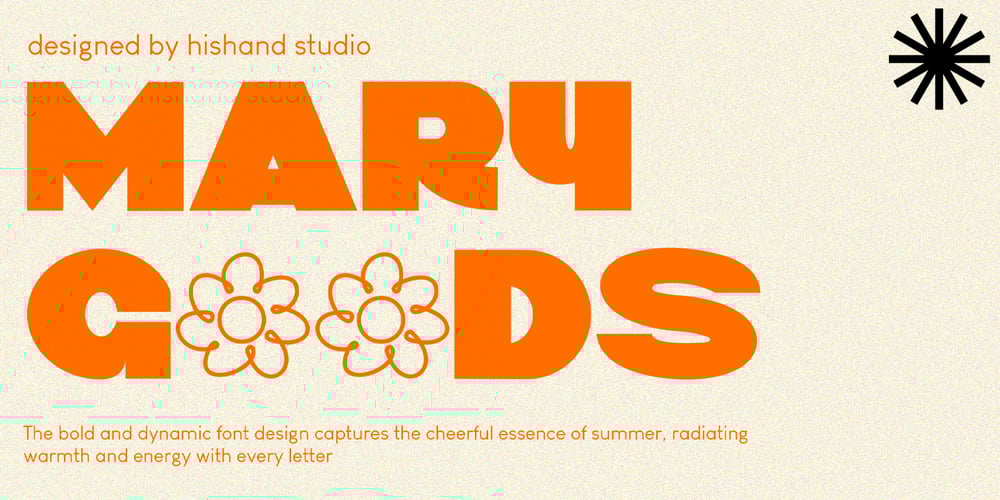
Mary Goods
Mary Goods font
Mary Goods Font Family was designed by Putu Dody Permana and published by Hishand Studio. Mary Goods contains 3 styles and family package options. Introducing MARY GOODS, the sans-serif bold font that’s perfect for making your brand, product, and design shine. MARY GOODS isn’t just a font it’s a branding powerhouse. Incorporate it into your design to instantly enhance your brand’s visual identity. Complete with ligatures alternates regular hollow icon kerning multilingual support